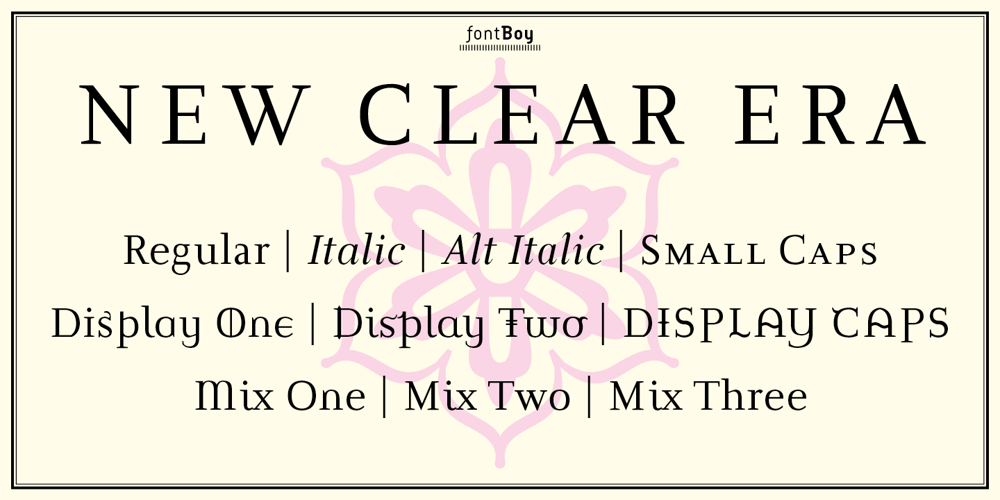
New Clear Era Font Family was designed by Bob Aufuldish and published by fontBoy. New Clear Era contains 10 styles and family package options. New Clear Era is part of a large ongoing project investigating classicism and legibility. The regular version is the base font. Numerous permutations will be performed on this underlying skeleton. Also investigated are the ideas of an extended type family, and trying to understand what makes a contemporary legible, serif typeface. The Mix versions combine characters from the Roman and Display to make quirky fonts that can be comfortably used for setting text. Mix One is the most quirky; Mix Three is the least.